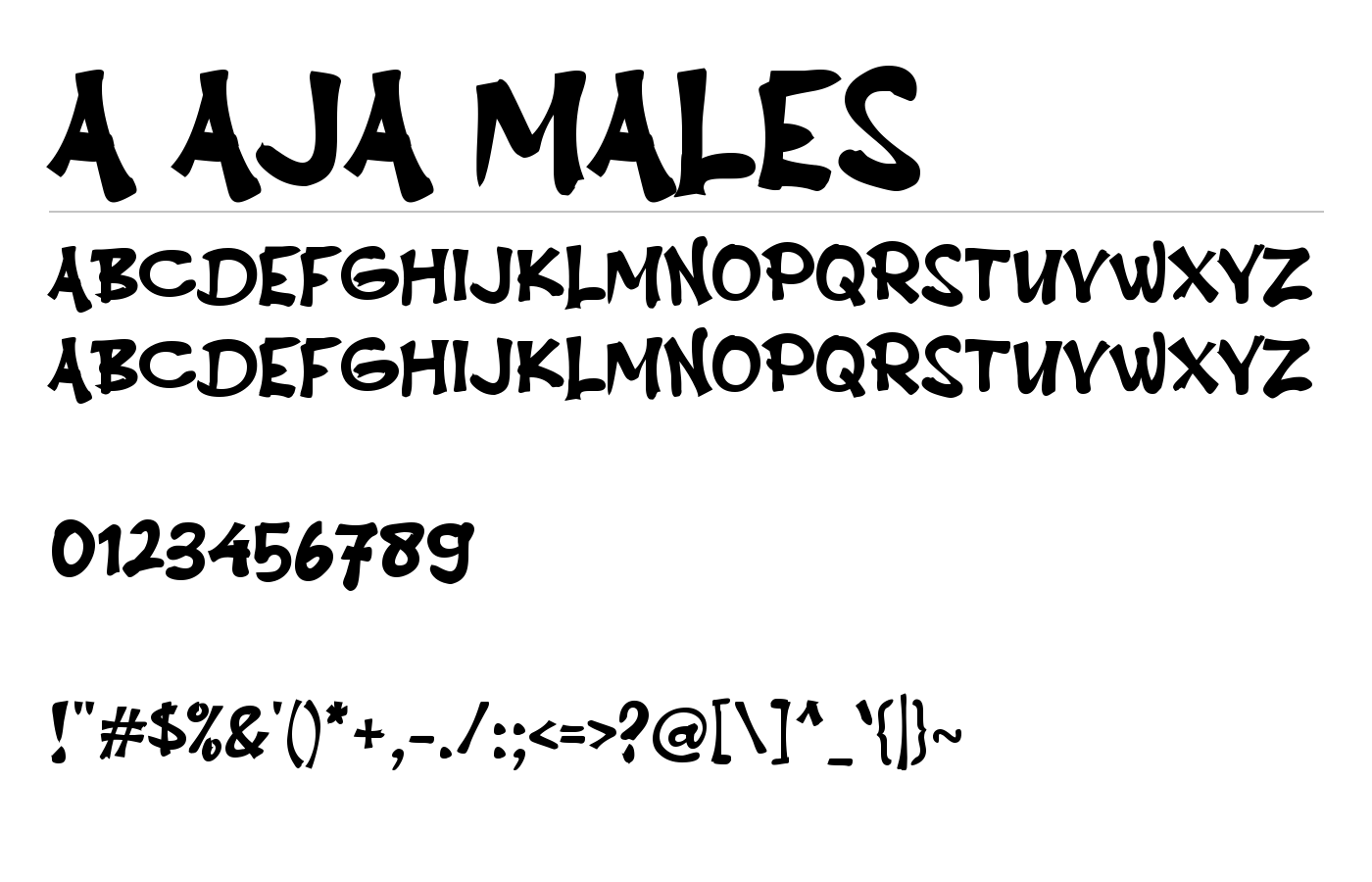
Aja Males is a bold, playful display font with a hand-drawn, brushstroke style that gives it a lively and informal personality. Its slightly irregular shapes and strong strokes make it perfect for creative projects, logos, and headlines that need a fun, energetic vibe. This font works well in casual branding and eye-catching designs where a friendly and dynamic look is desired.
a Aja Males Font